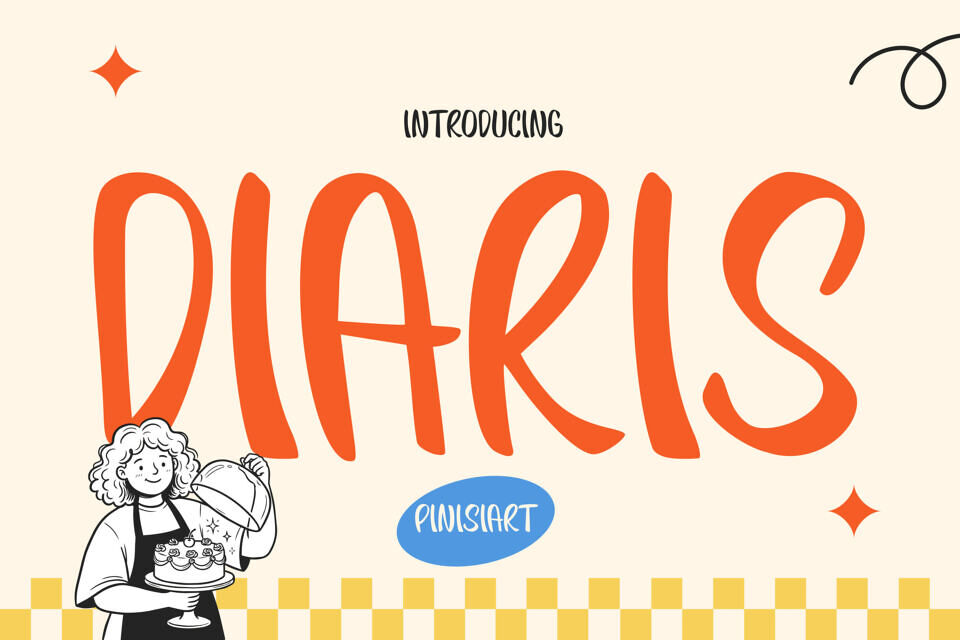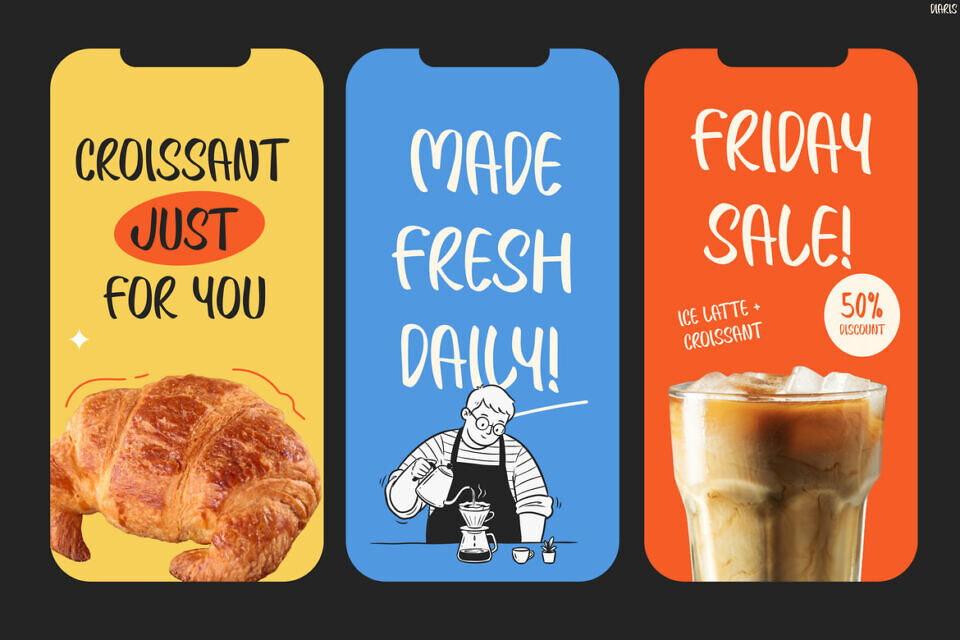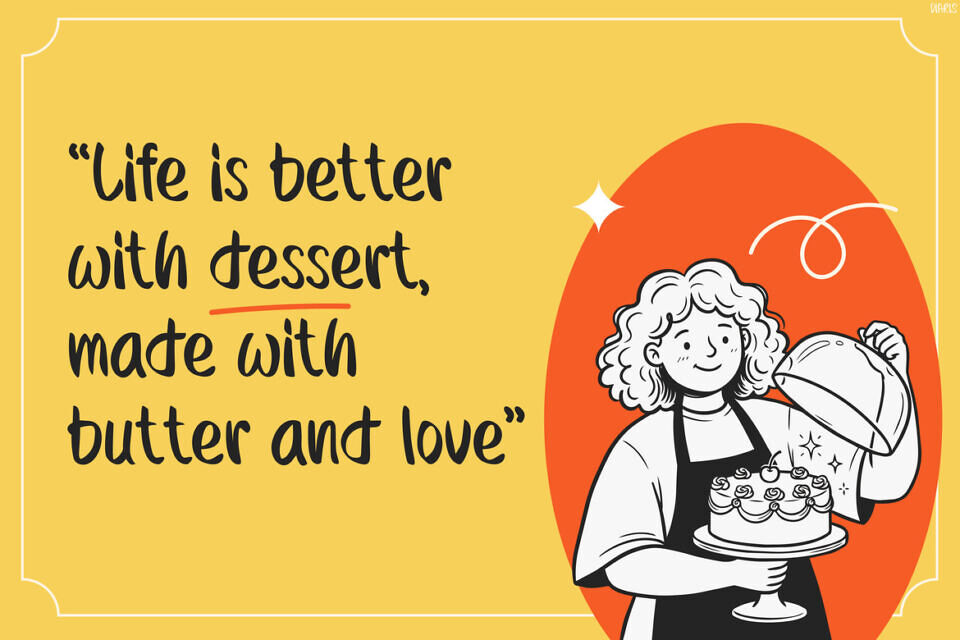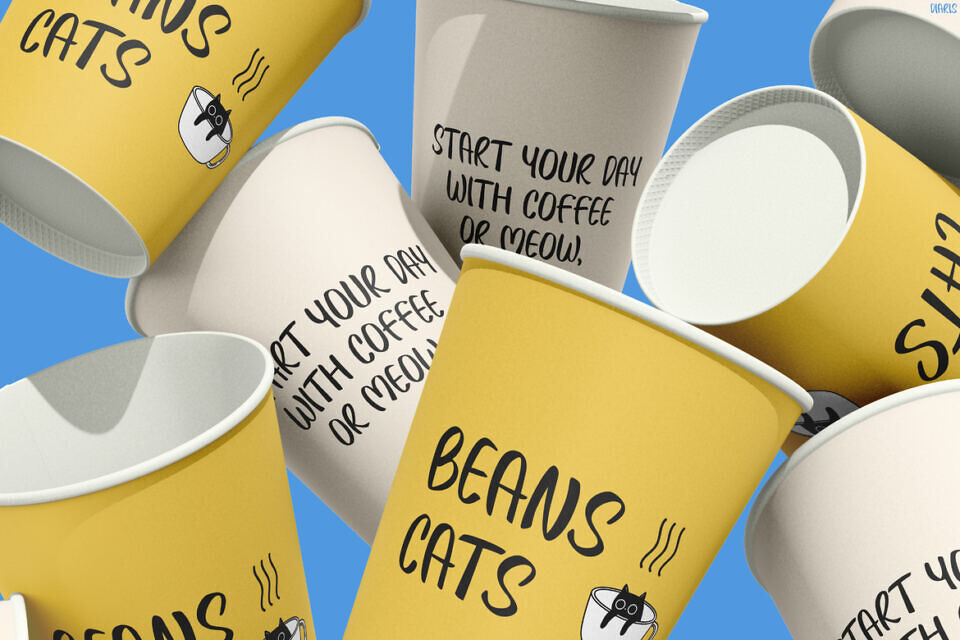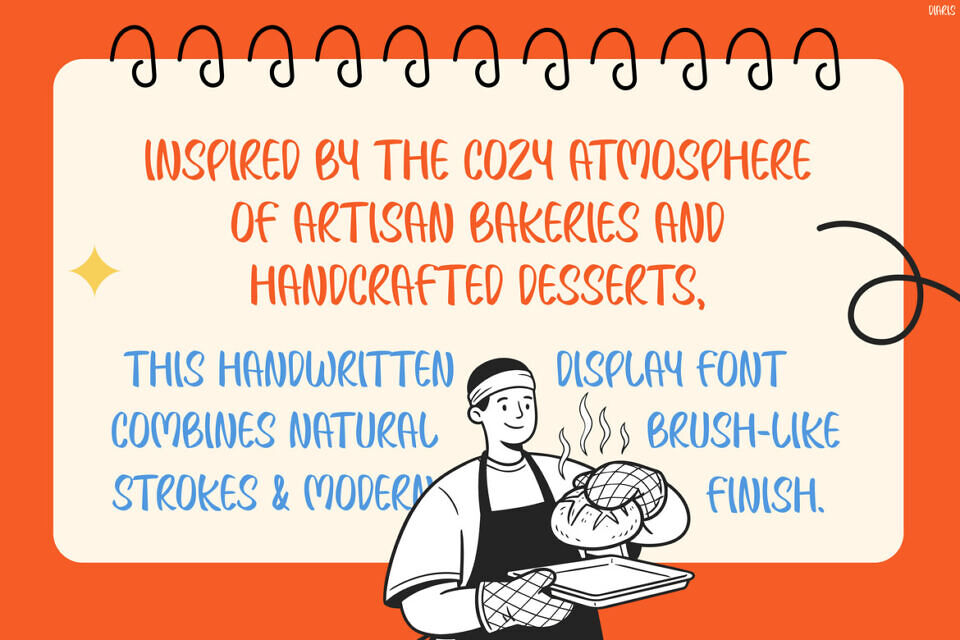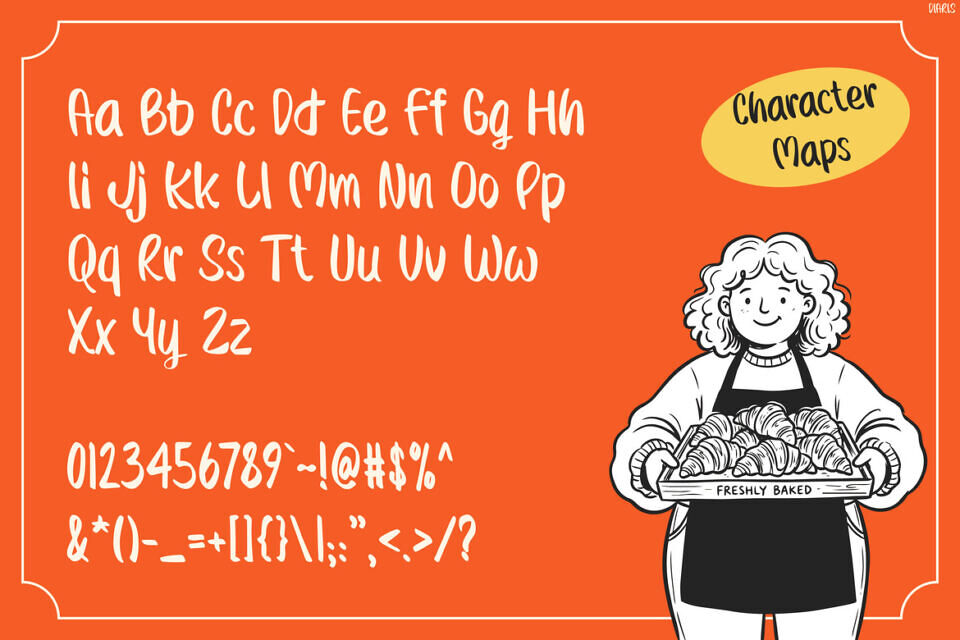
Diaris font brings the comforting charm of artisan bakeries and cozy cafés into every design with its playful handwritten strokes and warm, handcrafted personality. Unlike ordinary handwriting fonts, Diaris blends natural brush movement with soft, rounded forms to create typography that feels genuine, welcoming, and full of flavor.
The font’s relaxed rhythm gives headlines a personal touch, creating a welcoming atmosphere. This makes Diaris perfect for designing friendly brands, such as bakeries or cafes, turning simple messages into engaging visual experiences that leave a lasting impression.